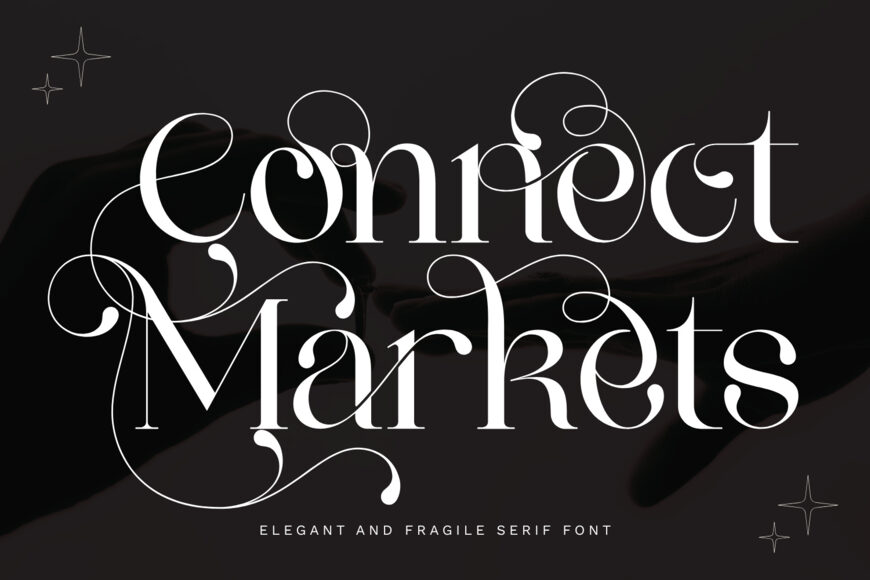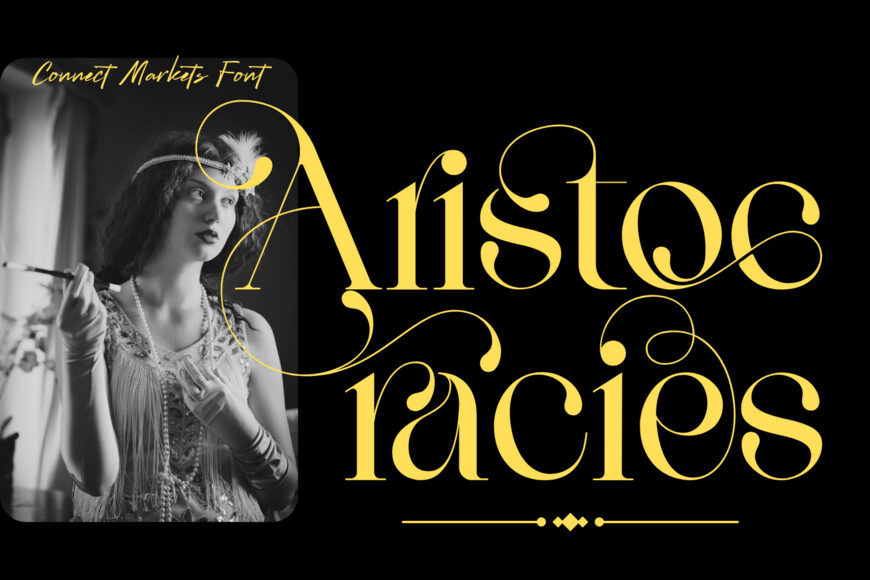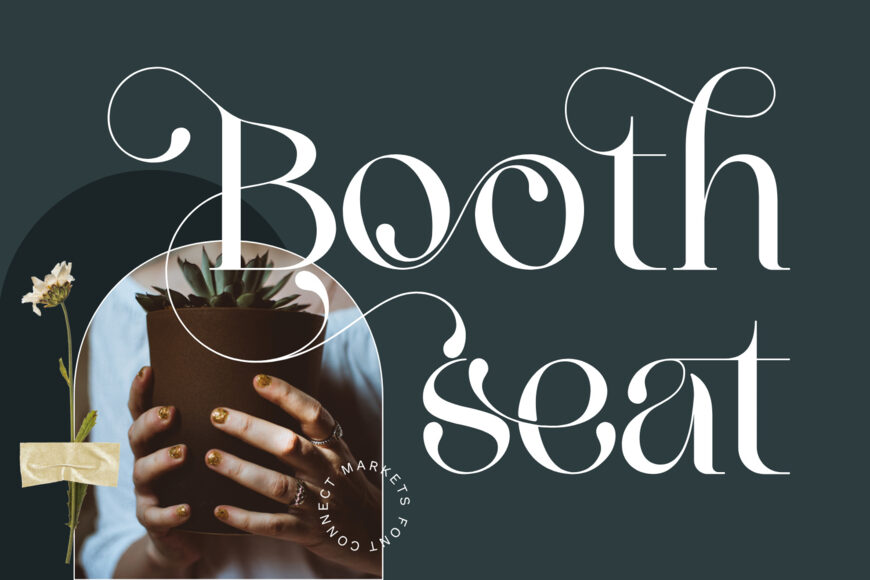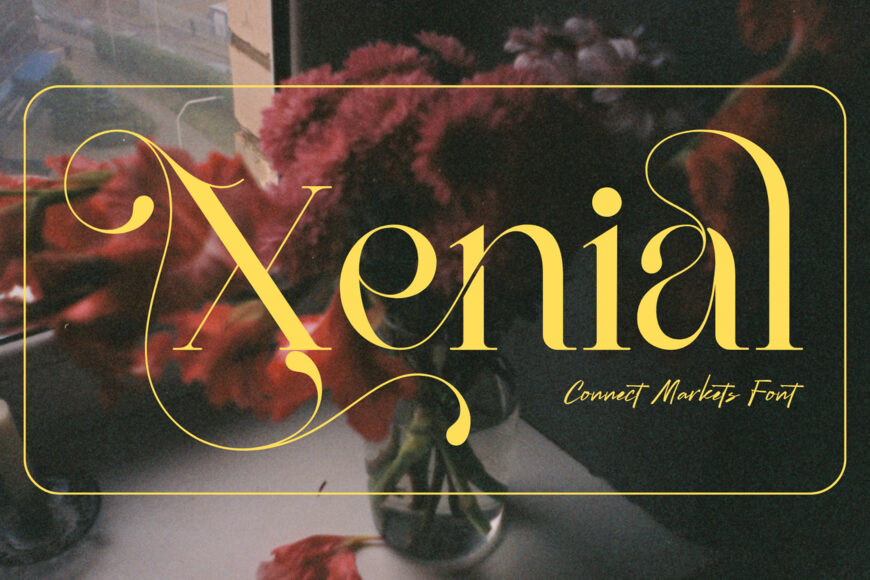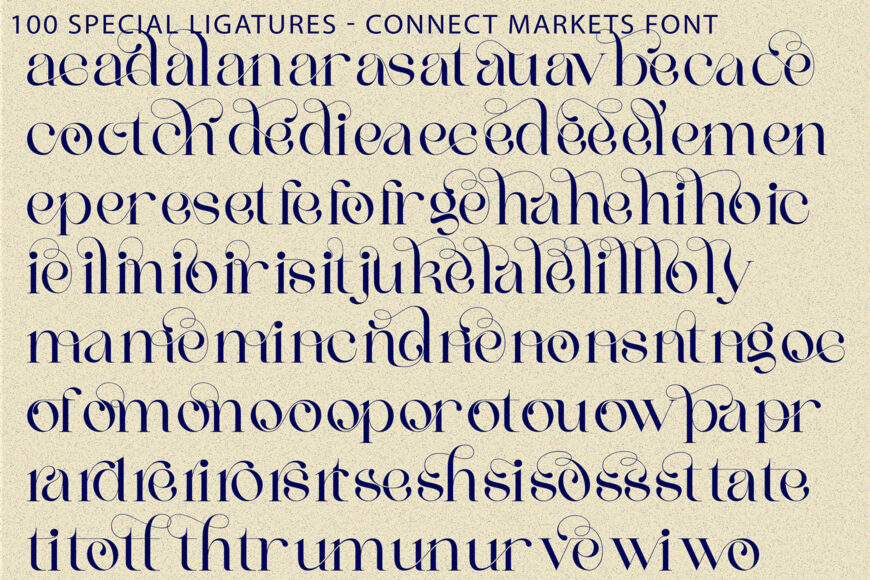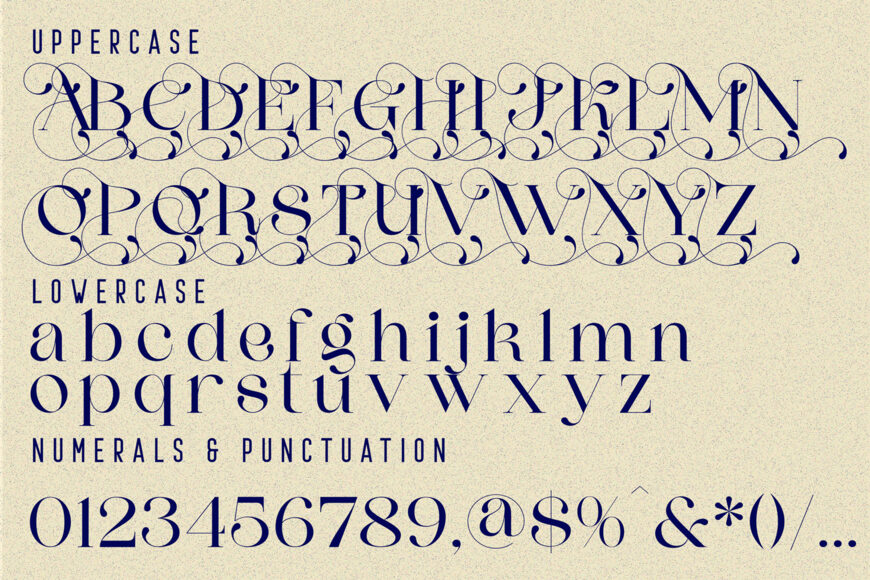
Connect Markets is a breathtaking luxury calligraphic serif font designed at the intersection of modern high-fashion typography and romantic Victorian flourishes. Defined by its sweeping hairline swashes, delicate loop spirals, and teardrop terminals, this typeface brings an irresistible sense of royal elegance and artisanal grandeur to high-end design layouts.
Engineered with high-contrast stems and intricate calligraphic loops that float seamlessly around character headlines, Connect Markets allows designers to construct bespoke insignia and luxury logos with minimal effort. It is the definitive typographic choice for luxury wedding stationery, perfume and high-end cosmetic packaging, fashion magazine editorial covers, boutique wine labels, and romantic brand identities.